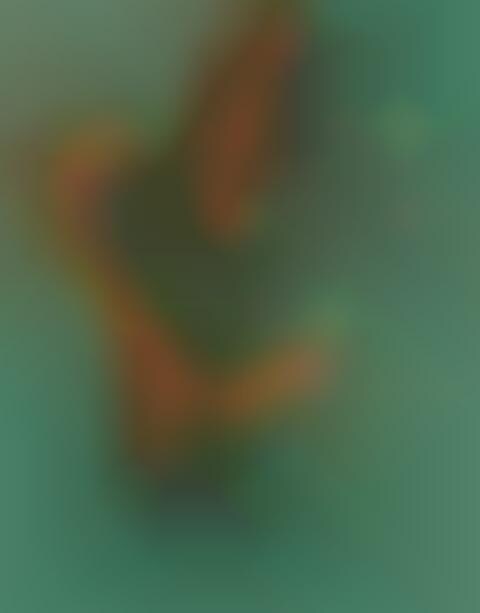
Infusing every letter with the most fun and most luxurious parts of a resort hotel, illustrator Jing Zhang creates a font design that focuses on relaxation and pampering.
The letters are digitally constructed with a wooden look that evokes the imagery of going to the spa with the hot tubs, saunas and other indulgent accommodations. Imagery of swimming pools, water slides and ferris wheels are incorporated into the structure of the 3D-styled font, reminiscent of the fun times people have on vacation. Zhang makes each letter work as a building, transforming each one into a miniature storyboard of activity and excitement.
The resort-styled typography of Jing Zhang's font design works to make each letter it's own type of vacation destination.
Indulgent Hotel Typography
Jing Zhang Constructs Resort Buildings into a Stylized Font Design